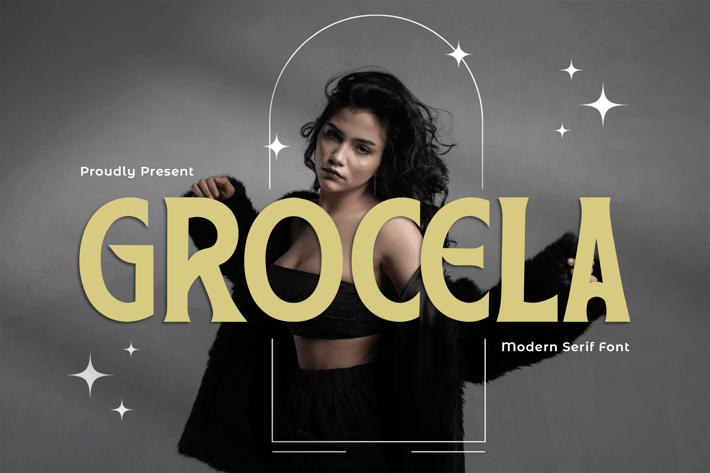
Grocela – A Modern Serif Font
Introducing Grocela, a modern serif font that blends sophistication with contemporary flair. Designed with clean lines, balanced proportions, and subtle curves, this typeface is ideal for branding, editorial layouts, luxury packaging, and stylish advertising.
Grocela offers excellent readability while maintaining a high-end aesthetic, making it perfect for logos, fashion magazines, wedding invitations, and upscale product designs. It includes uppercase and lowercase letters, numerals, punctuation, and multilingual support, ensuring versatility for global projects.
Enhance your creative work with Grocela—where modern elegance meets timeless typography.
Introducing Grocela, a modern serif font that blends sophistication with contemporary flair. Designed with clean lines, balanced proportions, and subtle curves, this typeface is ideal for branding, editorial layouts, luxury packaging, and stylish advertising.
Grocela offers excellent readability while maintaining a high-end aesthetic, making it perfect for logos, fashion magazines, wedding invitations, and upscale product designs. It includes uppercase and lowercase letters, numerals, punctuation, and multilingual support, ensuring versatility for global projects.
Enhance your creative work with Grocela—where modern elegance meets timeless typography.